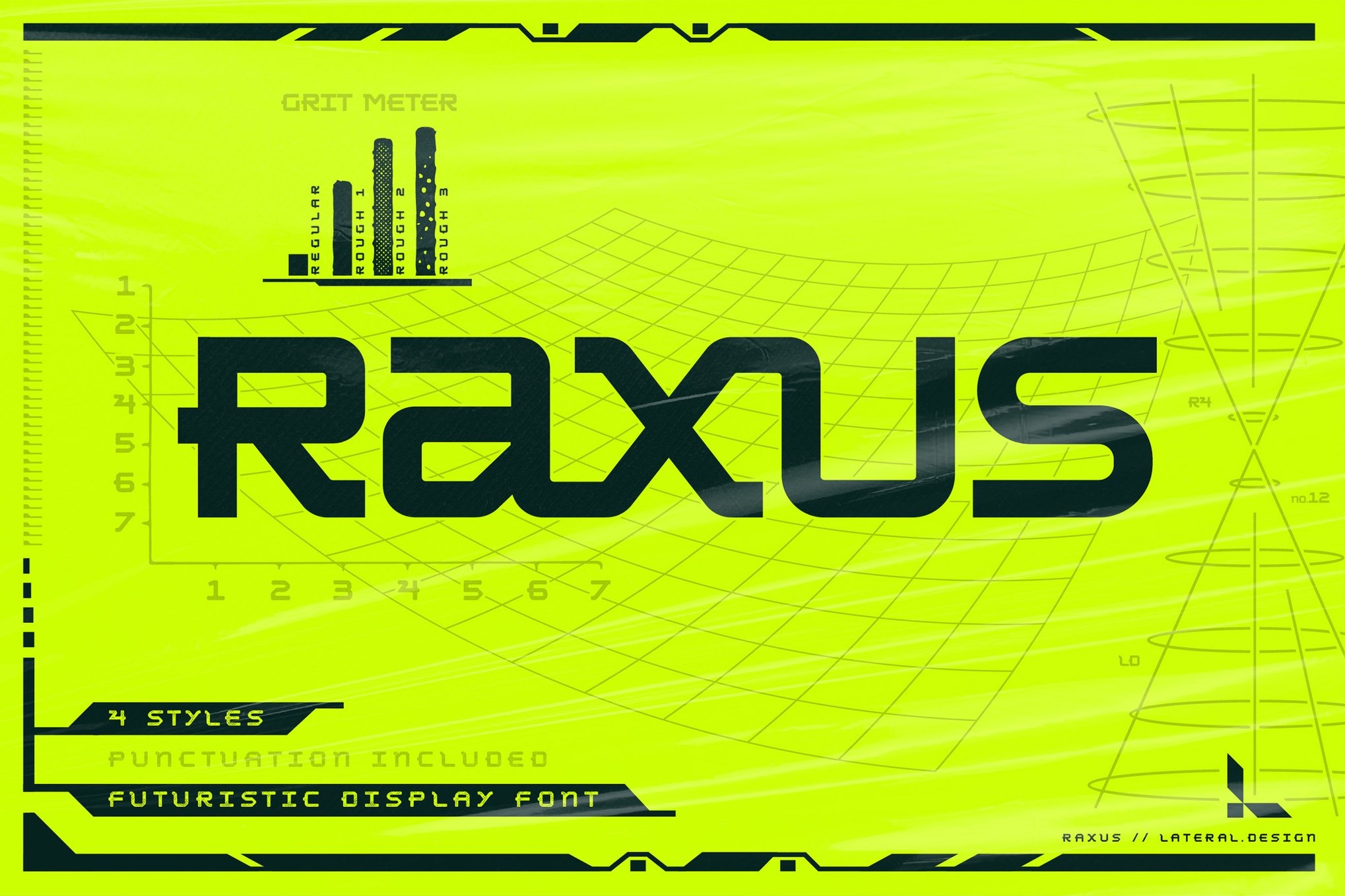
Raxus – Modern Techno Font
Raxus – Modern Techno Font is a flexible and reliable font created to fit multiple design needs, from branding and packaging to social media and editorial layouts. Raxus is a futuristic display font with 4 styles: Regular and 3 variations of halftone-distressed styles. Raxus is a near mono-width font family that utilizes all-caps for a strong and bold look. This font family can be used for numerous styles of projects, but it is perfect for achieving that futuristic feel with it’s linear type construction. Raxus includes numbers and punctuation.
Raxus is a great foundation for…
Futurist-style graphics, posters, or any other space-inspired design. What makes this font family unique is that you have the ability to control how the typography looks with a clean version and three distressed versions. Raxus is perfect for controlled and calculated layouts where bold and geometric typography is needed!